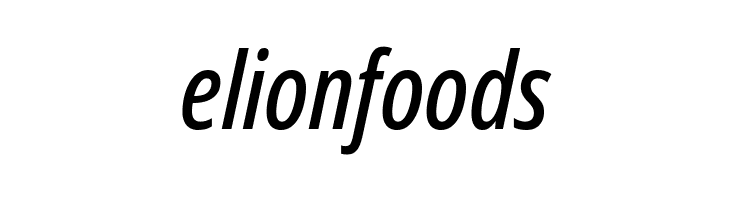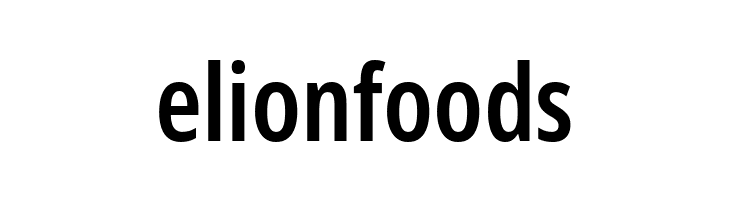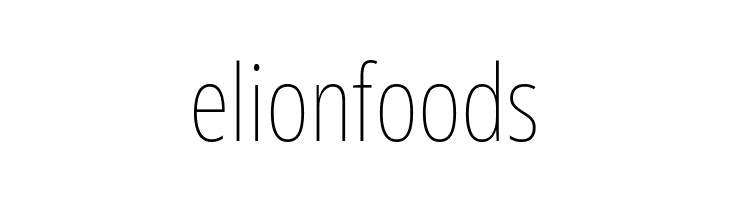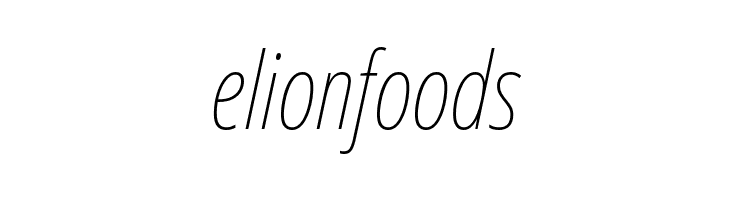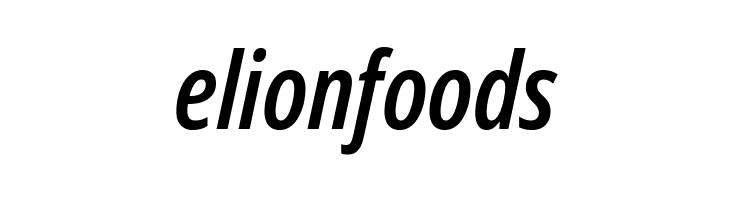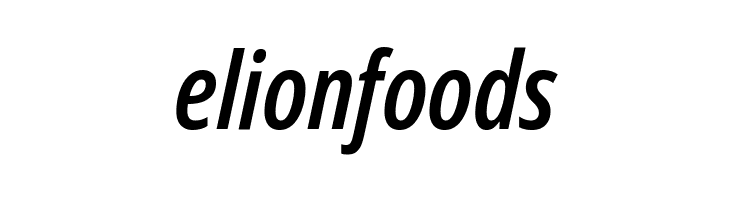
A modern, extra condensed sans-serif font with medium weight and high legibility.
A sleek, extra condensed italic typeface with a modern and dynamic style.
A modern, extra condensed sans-serif font with medium weight and italic style.
A modern, extra condensed sans-serif font with semi-bold weight for versatile use.
A modern, extra condensed sans-serif font with semi-bold weight and tight spacing.
A modern, extra condensed, semi-bold italic sans-serif typeface with tight spacing.
A modern, extra condensed sans-serif font with semi-bold weight and italic style.
A modern, extra-condensed sans-serif font with thin strokes and a clean aesthetic.
A modern, extra condensed sans-serif font with a thin weight and clean design.
A sleek, extra condensed, thin italic font with a modern and elegant design.